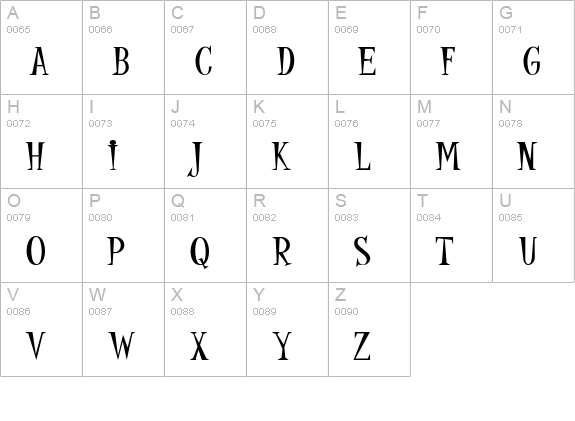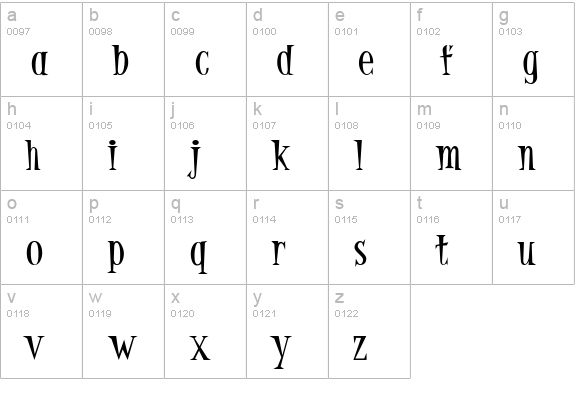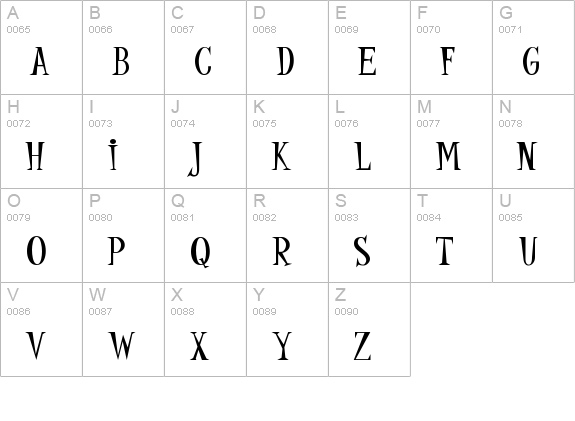
PFJump Abnormal Font Details
PFJump Abnormal font is a visually striking typeface that combines modern design with a touch of whimsy. Its unique and irregular letterforms give any project a bold and edgy look that is sure to make a statement. The font is perfect for headlines, posters, logos, and other creative designs that require a touch of originality. Best of all, PFJump Abnormal font is available for free download at FontsMarket.com. This means you can add this eye-catching font to your collection without breaking the bank. Don't miss out on the opportunity to elevate your designs with this one-of-a-kind typeface that is sure to stand out from the crowd.